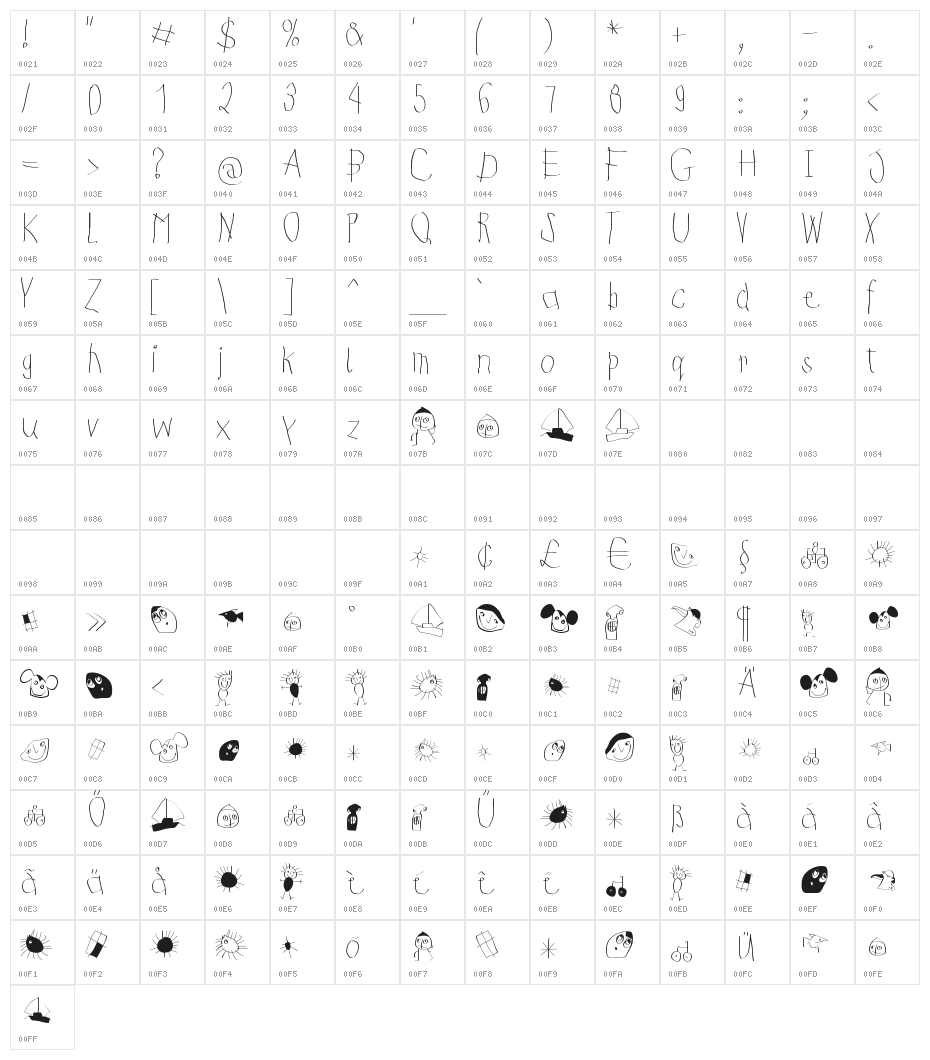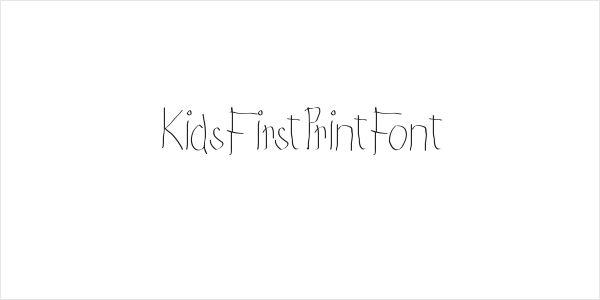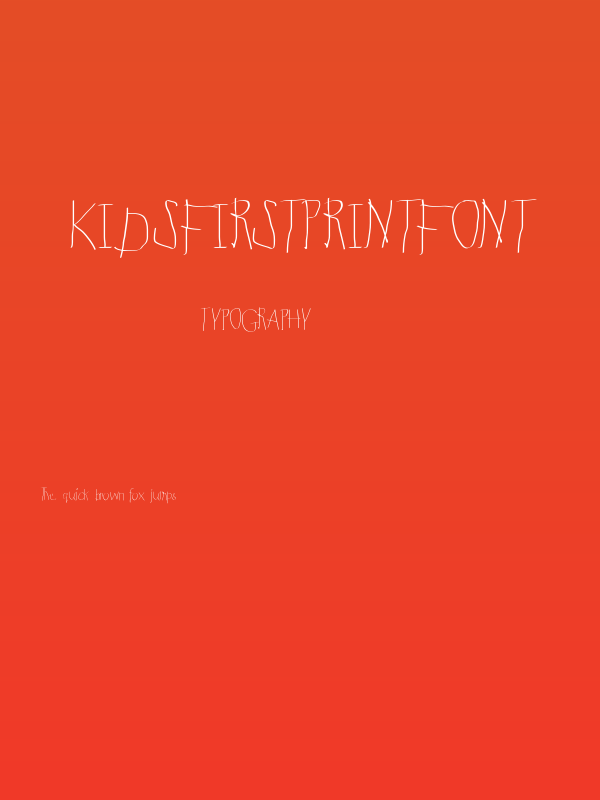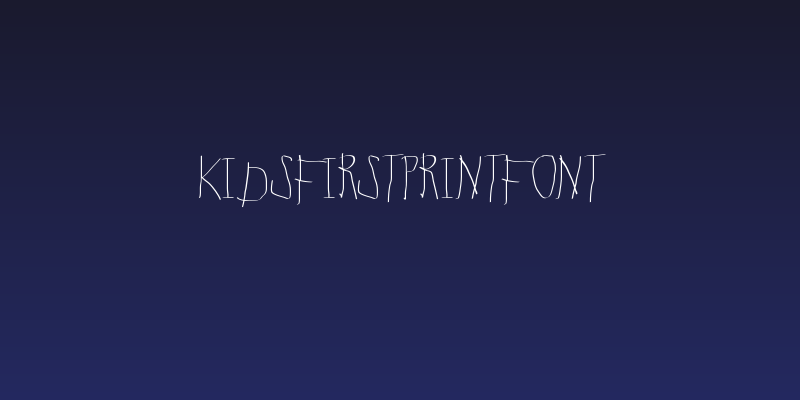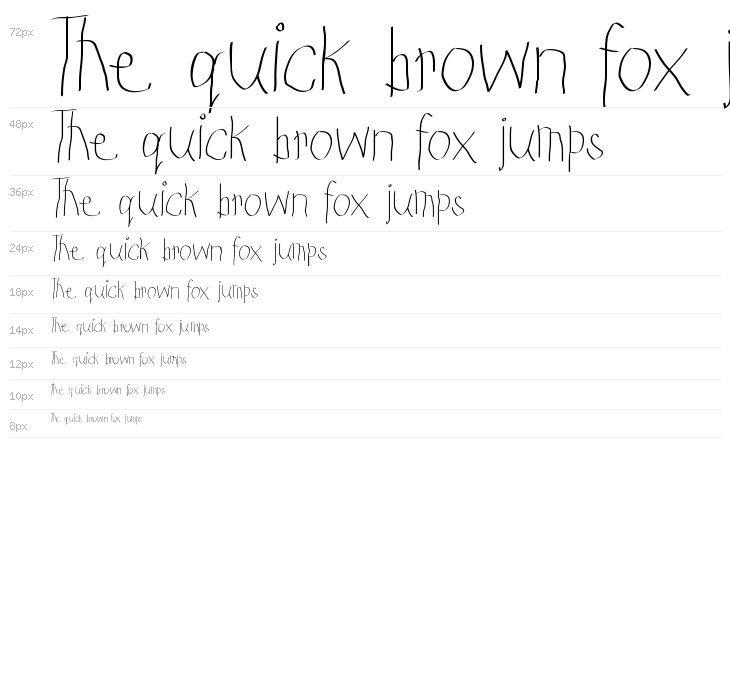
KidsFirstPrintFont Font
KidsFirstPrintFont Description
This playful and whimsical font captures the essence of a child's handwriting with its irregular, hand-drawn strokes and uneven character sizes. The letters are tall and slender, with a slight tilt that adds to the informal and casual feel. The uppercase and lowercase letters maintain a consistent style, while the numbers and special characters are equally playful, making them perfect for projects aimed at a younger audience. The font's unique charm lies in its imperfect lines and quirky character shapes, which evoke a sense of creativity and fun.
| Overall Style | Playful |
| Use Case | Headlines, Logos, Creative projects |
| Proposed Projects | Ideal for children's books, educational materials, playful branding, and creative art projects. |